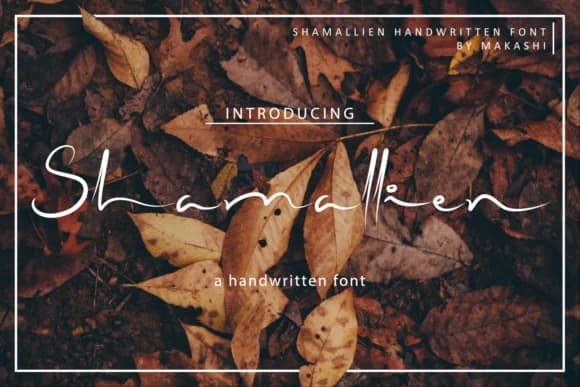
Shamallien by kammaqsum is an elegant script typeface with genuine handwritten characteristics that feel both timeless and contemporary. The font captures the flowing, organic quality of pen on paper, bringing authentic, personalized charm to any typography-driven project while maintaining excellent legibility across digital and print applications. This versatile script font excels across diverse creative disciplines. Whether you're crafting wedding invitation suites with layers of matching stationery, designing boutique cosmetics packaging that signals luxury and care, creating personalized greeting cards that feel handmade, or developing high-end gift tag sets for artisan products, Shamallien delivers a refined yet approachable aesthetic that commands attention. The handwritten style also shines for personal branding materials, allowing logos and business cards to feel intimate and distinctive without sacrificing sophistication. Social media graphics benefit tremendously from its natural, flowing letterforms, while event stationery, from rehearsal dinner cards to thank-you notes to custom place cards, gains an air of genuine warmth that few typefaces can authentically convey. The typeface's carefully balanced letterforms maintain consistent readability across different sizes and mediums, making it equally effective as a display font and in longer text passages. This makes Shamallien an adaptable choice for creatives who value both visual impact and functional reliability. Explore Shamallien on Creative Fabrica and add handwritten elegance to your design library.
- Elegant, Flowing, Shamallien
Shamallien Font is a script font that shines as a display or heading face. Pair it with a clean sans-serif or serif font for body text β the contrast creates a clear hierarchy while the two styles stay balanced and easy to read.
Shamallien Font